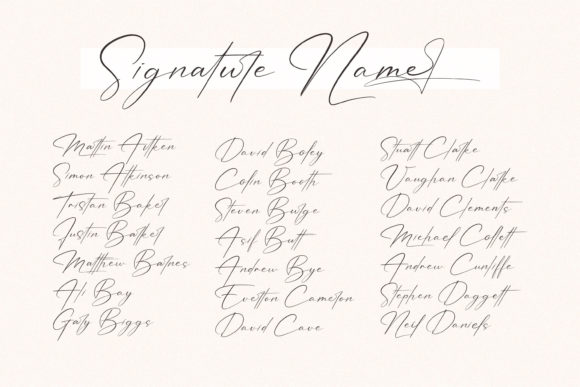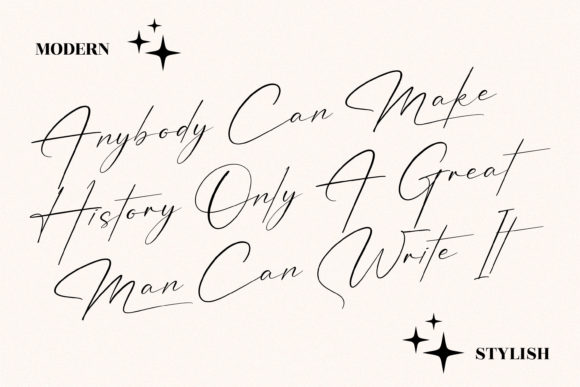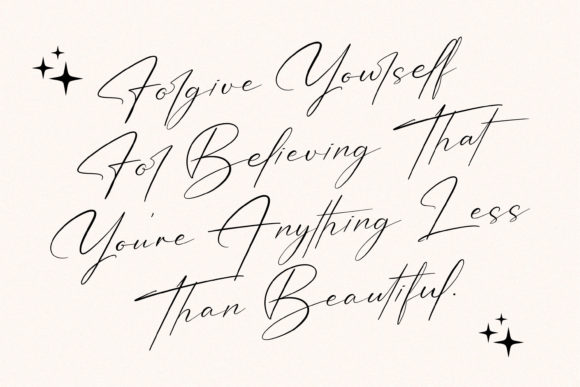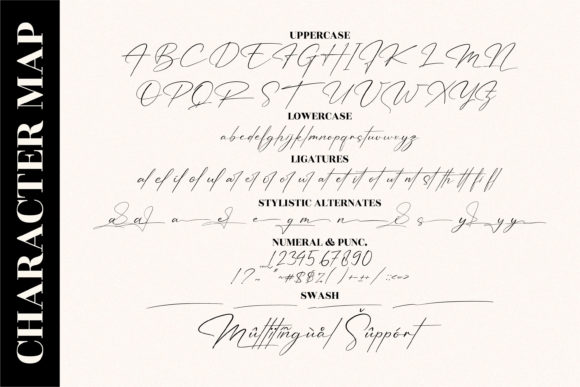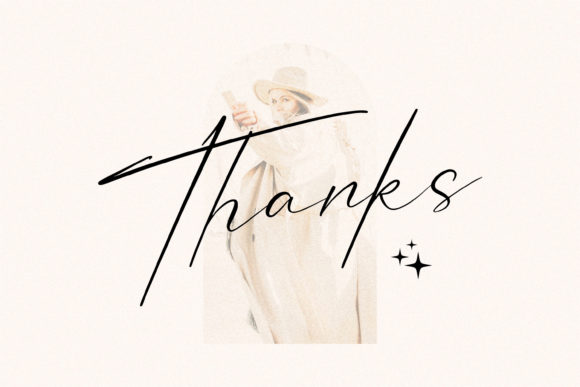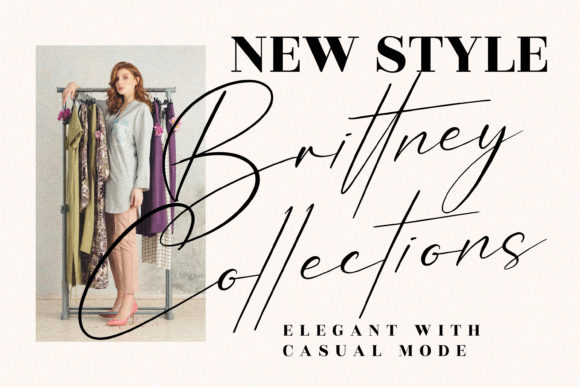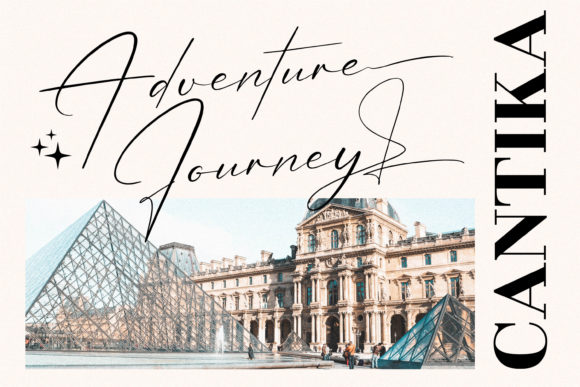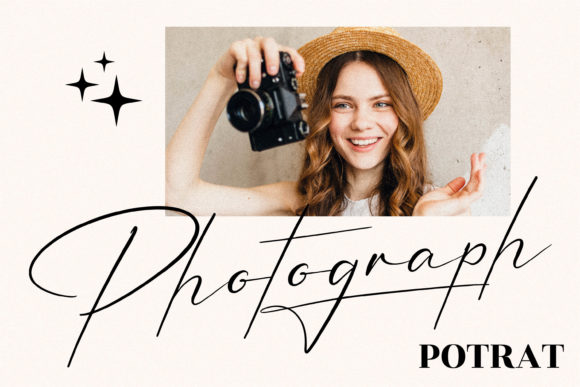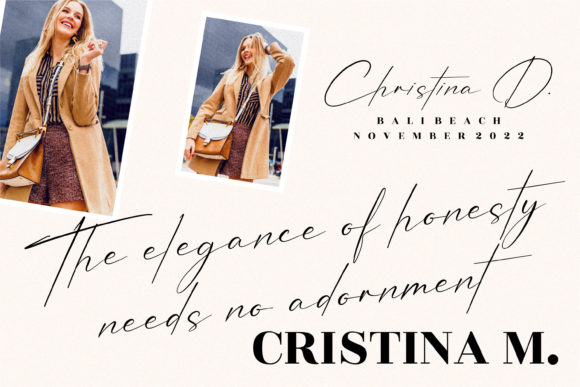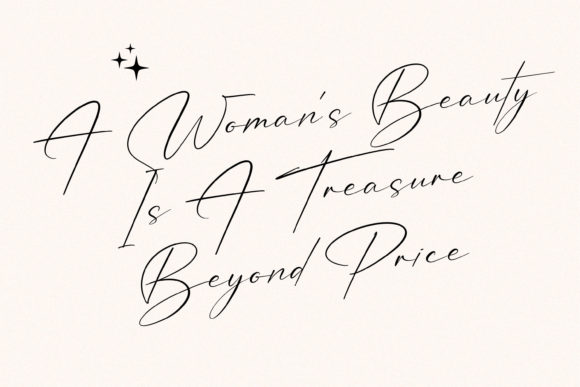
Patricia Signature Font
About Patricia Signature Font
Patricia Signature is a thin lettered and delicate script font that exudes elegance and class. This font was particularly crafted for those who need a beautiful and refreshing look to their designs. It is PUA encoded which means you can access all glyphs and swashes with ease!